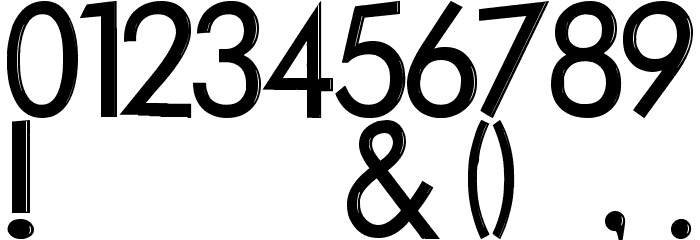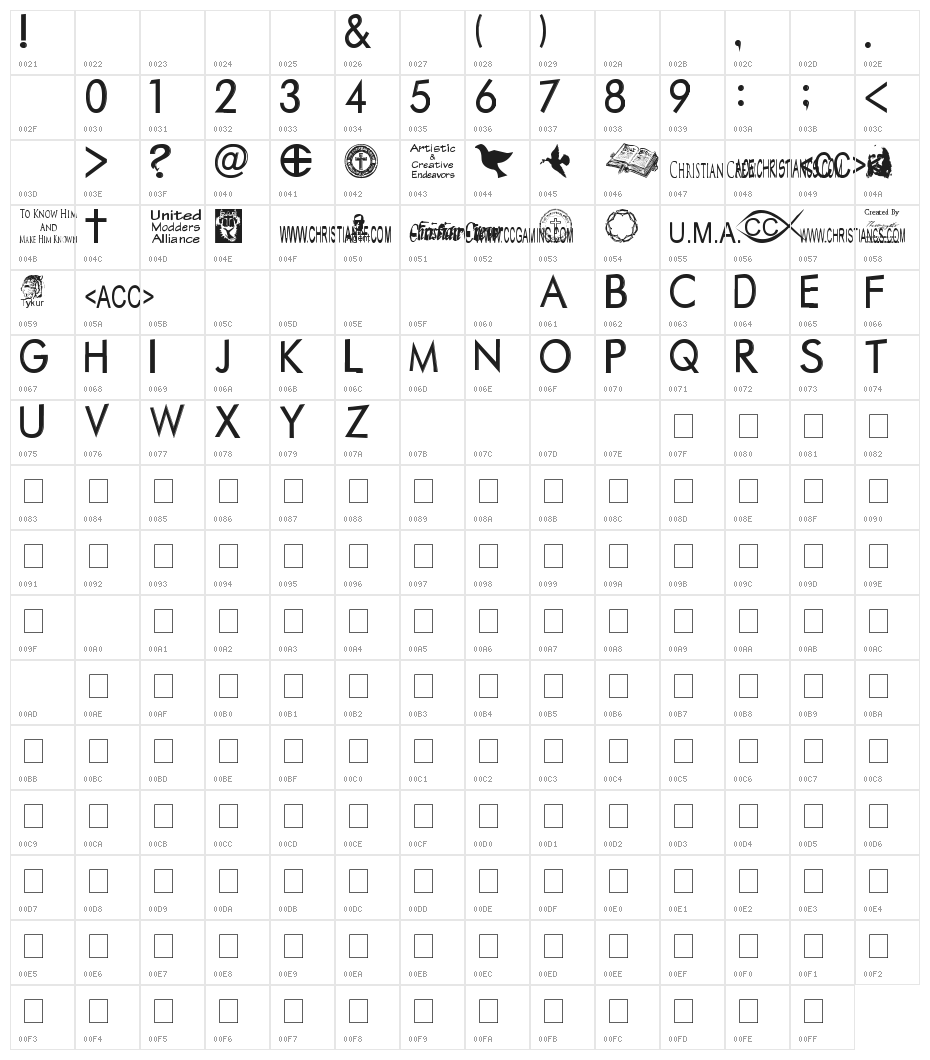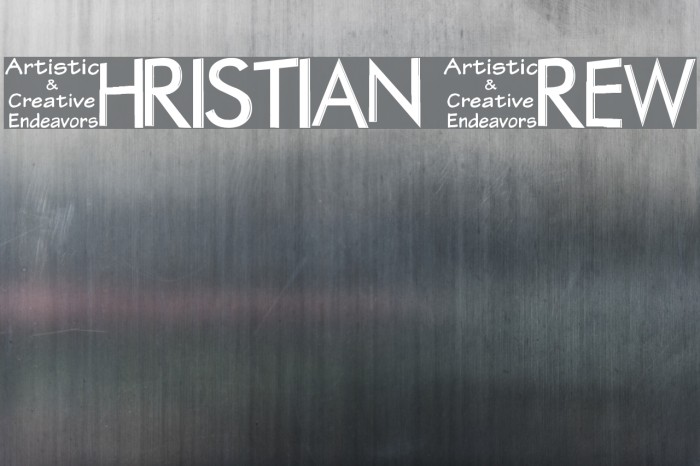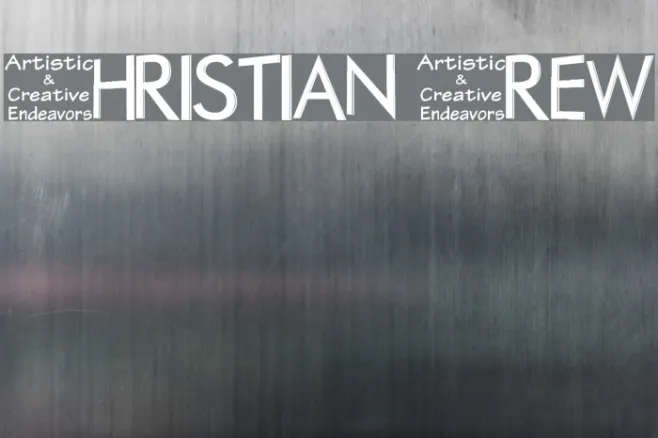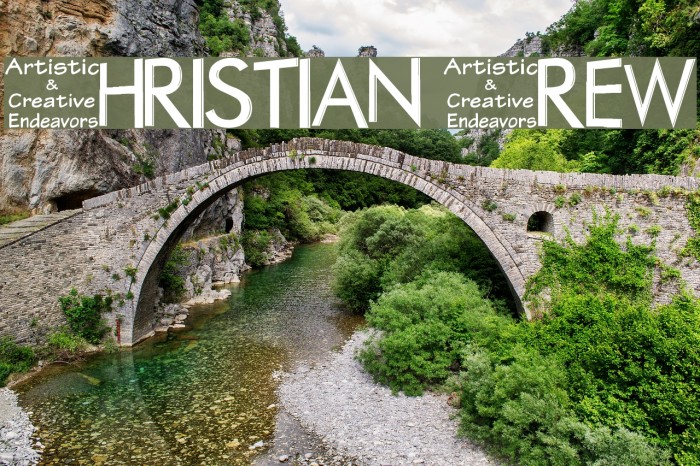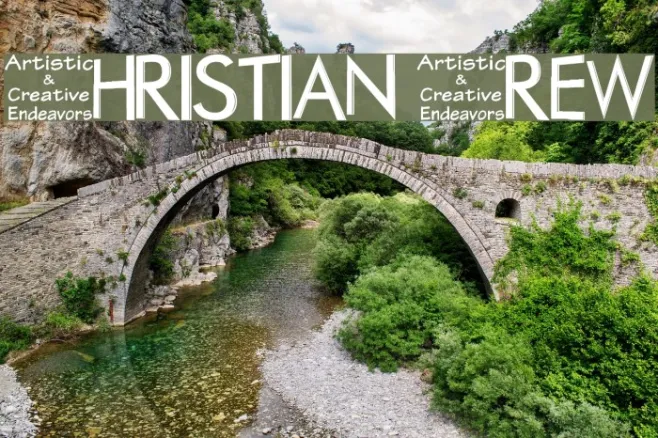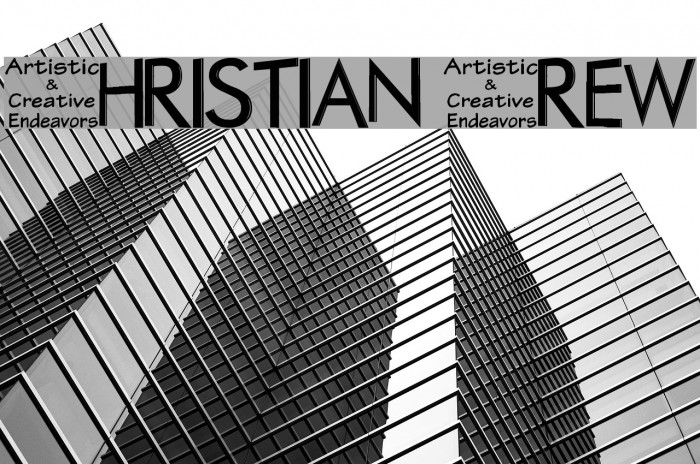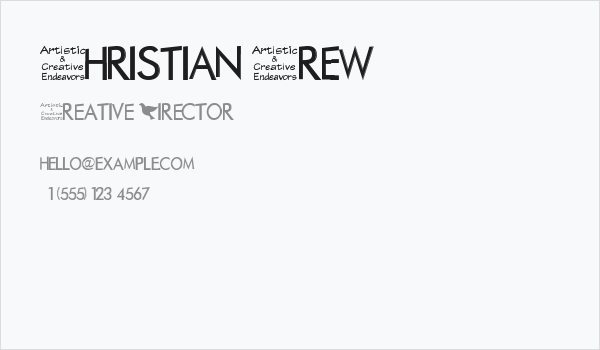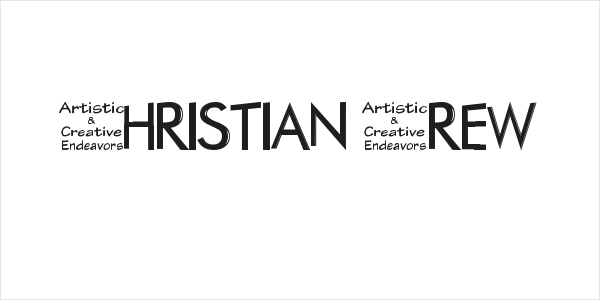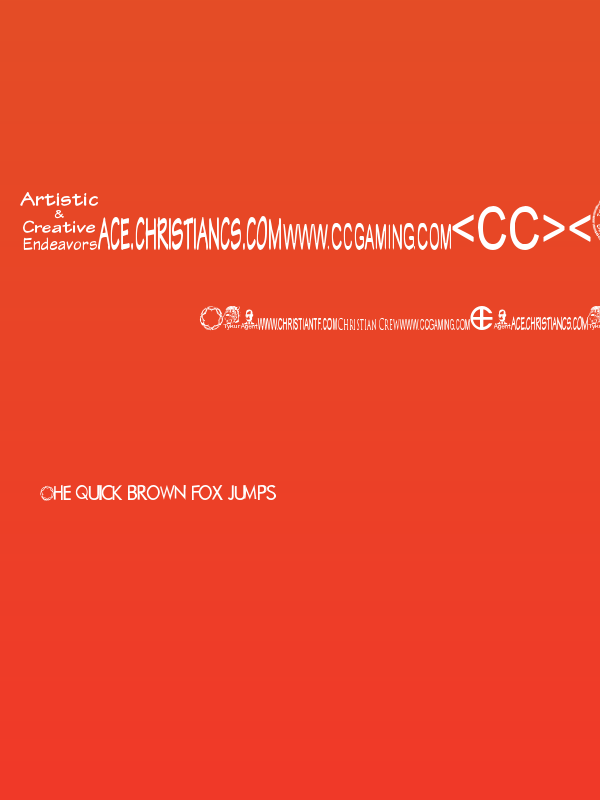
Christian Crew Font
Christian Crew Description
This font features a bold and modern sans-serif style with clean lines and a geometric structure. The uppercase letters are tall and slightly condensed, giving a strong and assertive appearance. The lowercase letters maintain a consistent height, contributing to a uniform look across the text. Numbers are designed with a similar boldness, ensuring readability and impact. Special characters are included, matching the overall aesthetic with a sleek and contemporary feel. The font's design is versatile, suitable for a range of applications where clarity and modernity are desired.